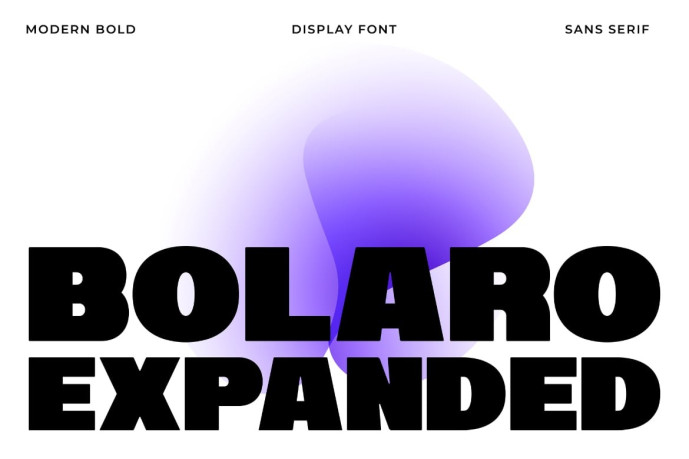
Bolaro Expanded Font
Designer: Saeful Maarif
Bolaro Expanded is a modern bold display sans serif designed for maximum impact. Featuring extra-wide proportions, thick geometric strokes, and a clean contemporary structure, this typeface delivers a strong visual presence while maintaining excellent readability.
Built for large-scale typography, Bolaro Expanded creates bold headlines that feel confident, modern, and highly recognizable. Its expanded construction gives every word a powerful horizontal emphasis, making it ideal for branding, advertising, packaging, sports graphics, technology visuals, and editorial headlines.
Whether you’re designing a futuristic brand identity, a striking poster campaign, or a premium product package, Bolaro Expanded provides the perfect balance of strength, clarity, and modern style.